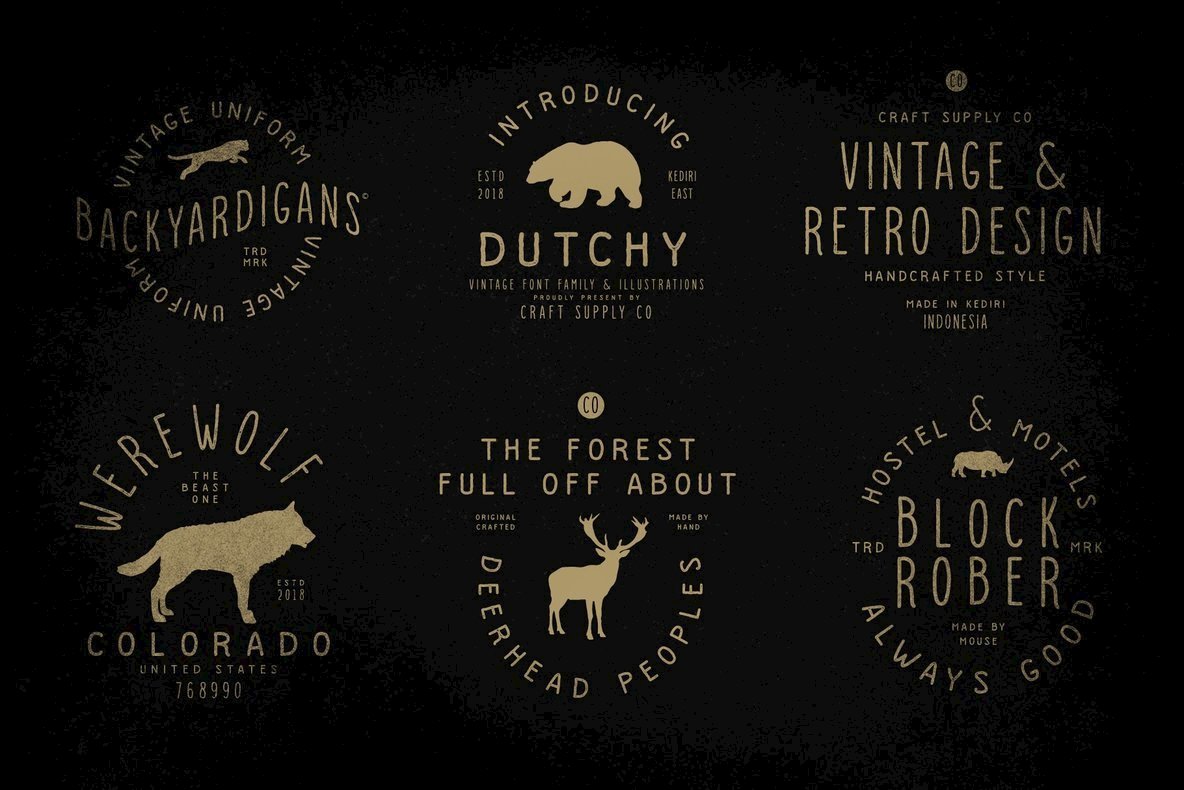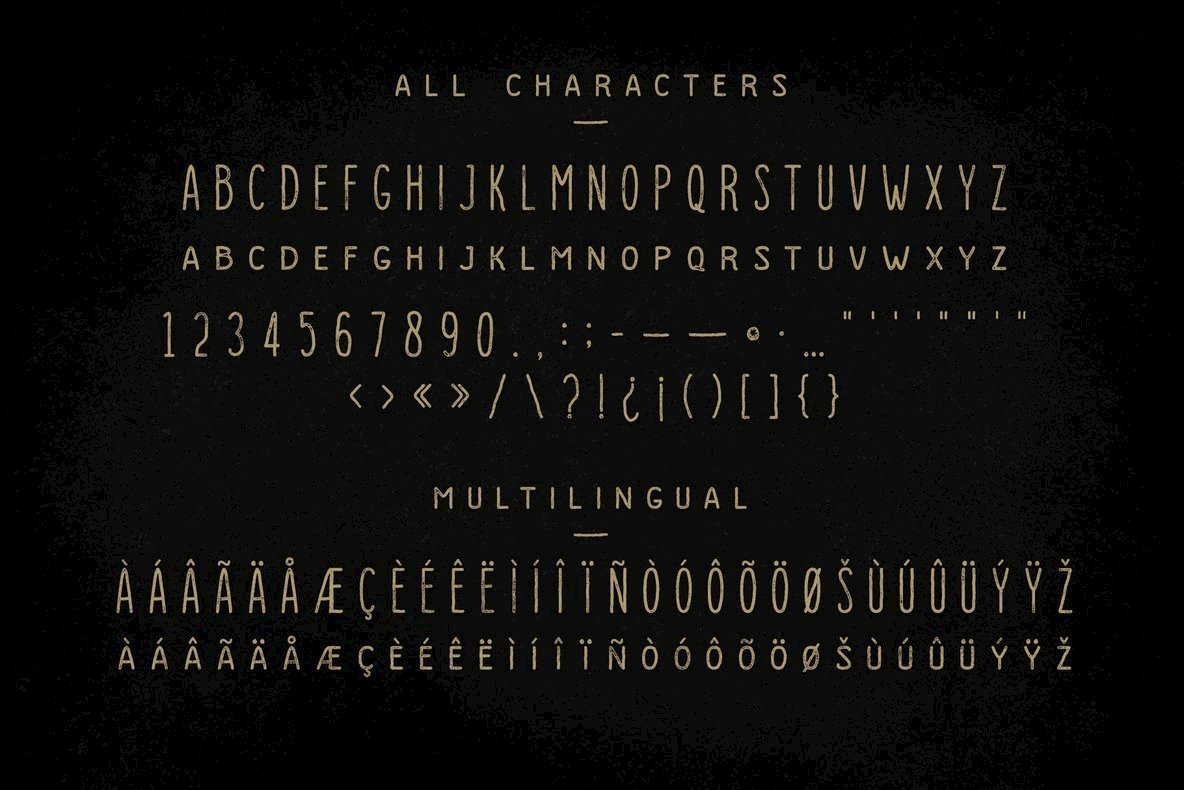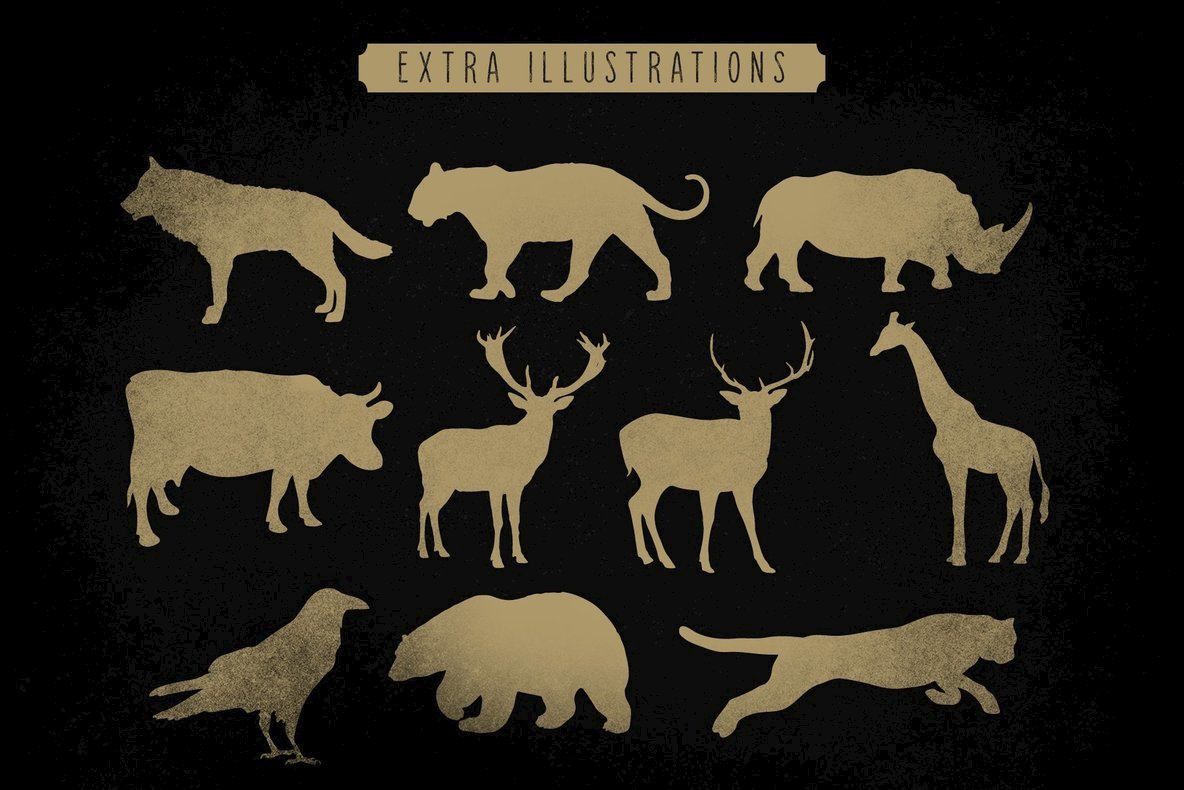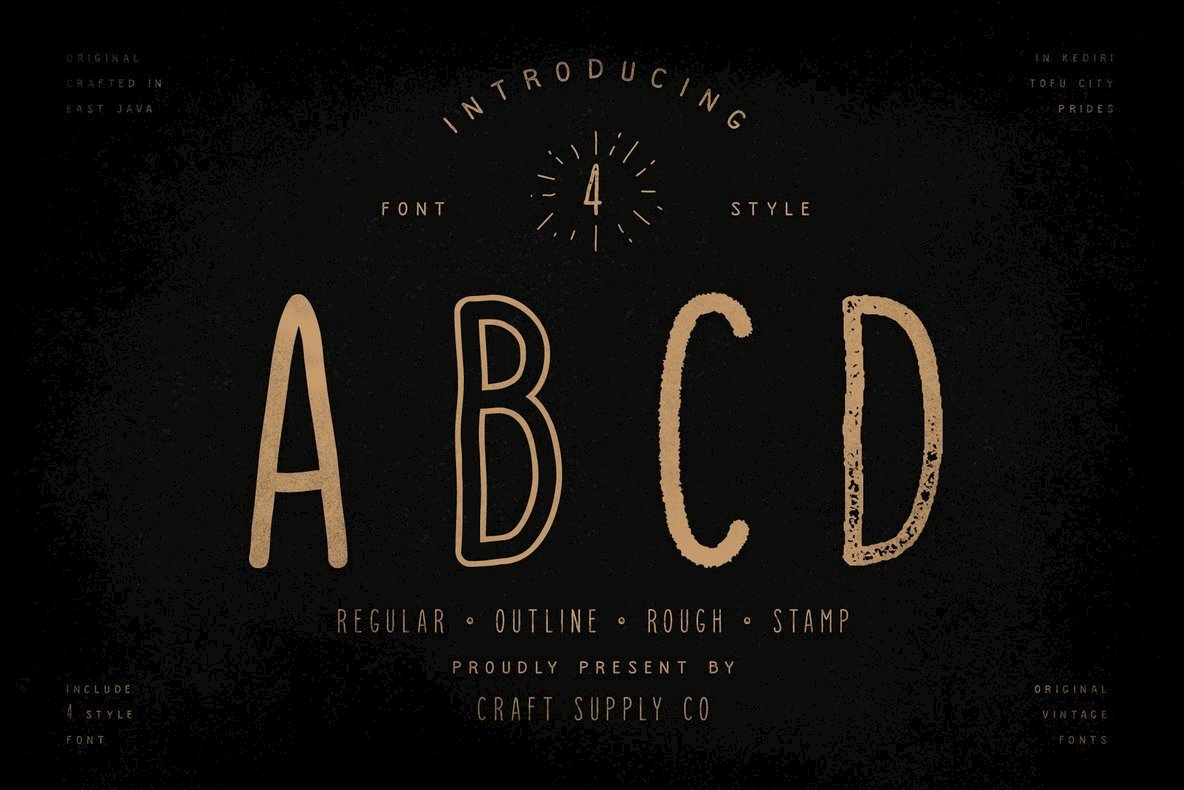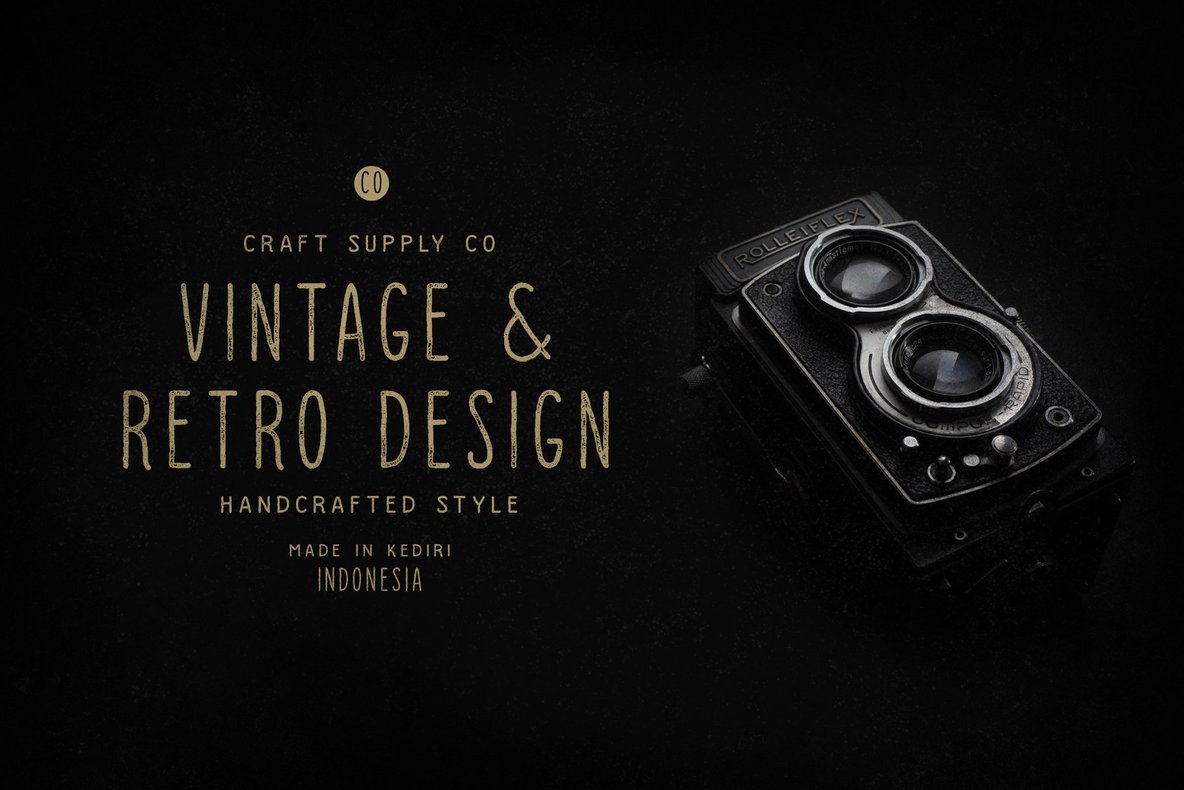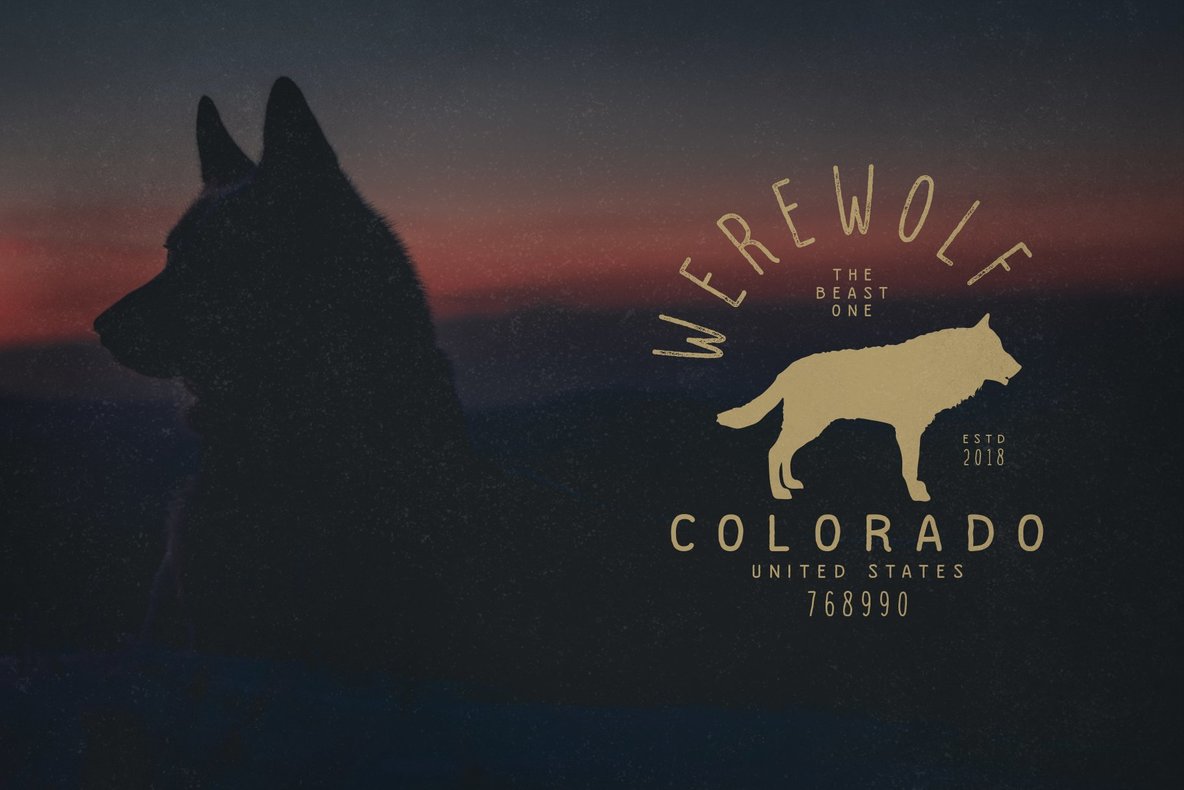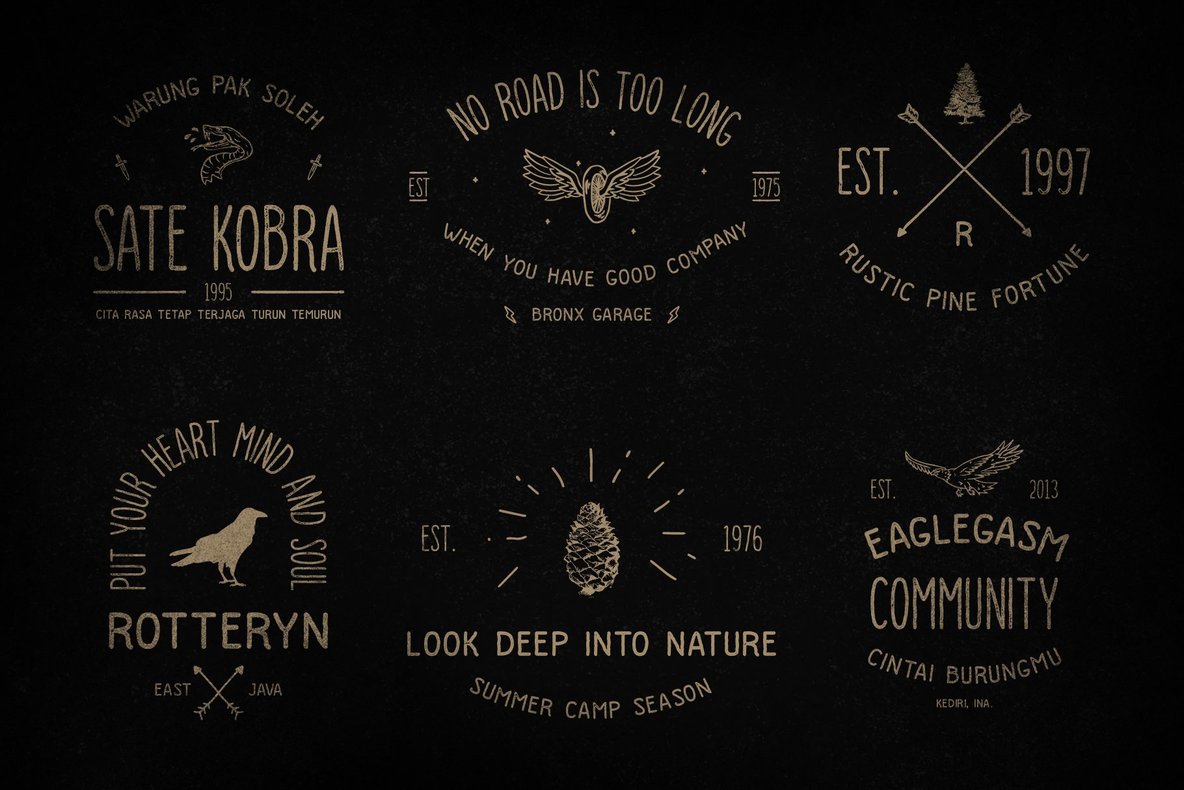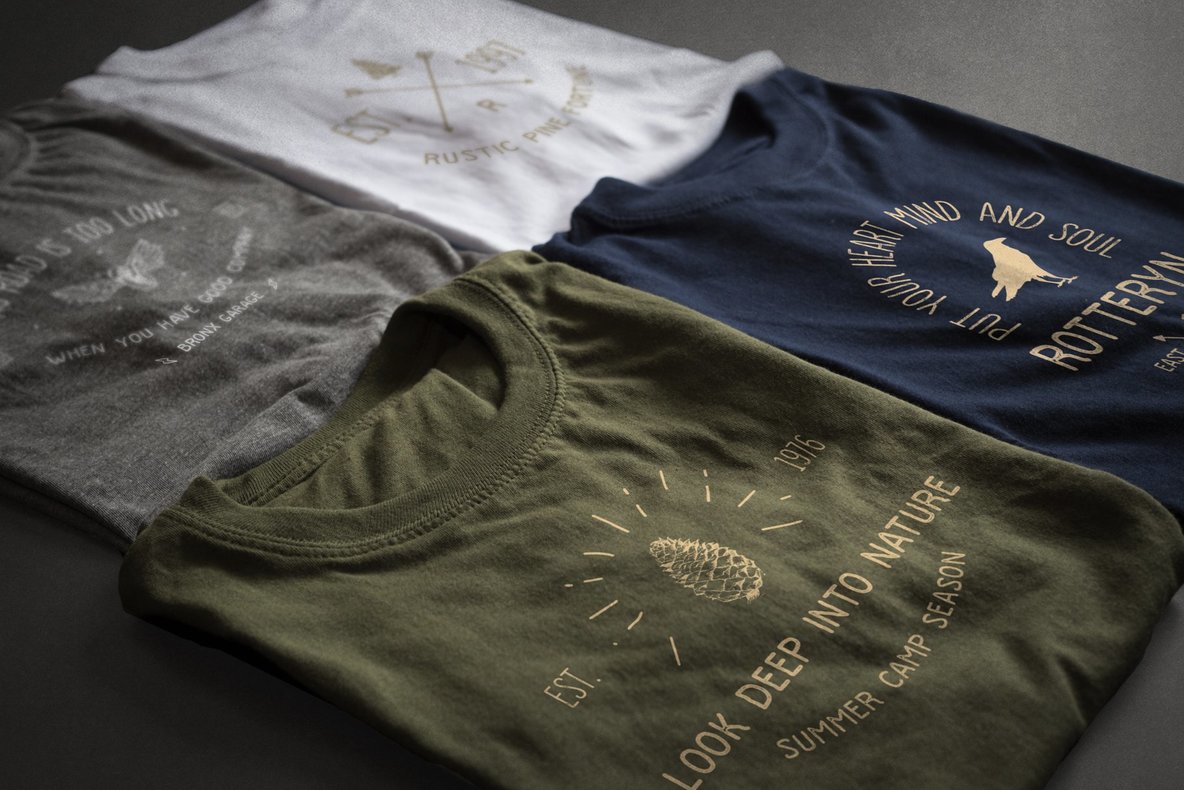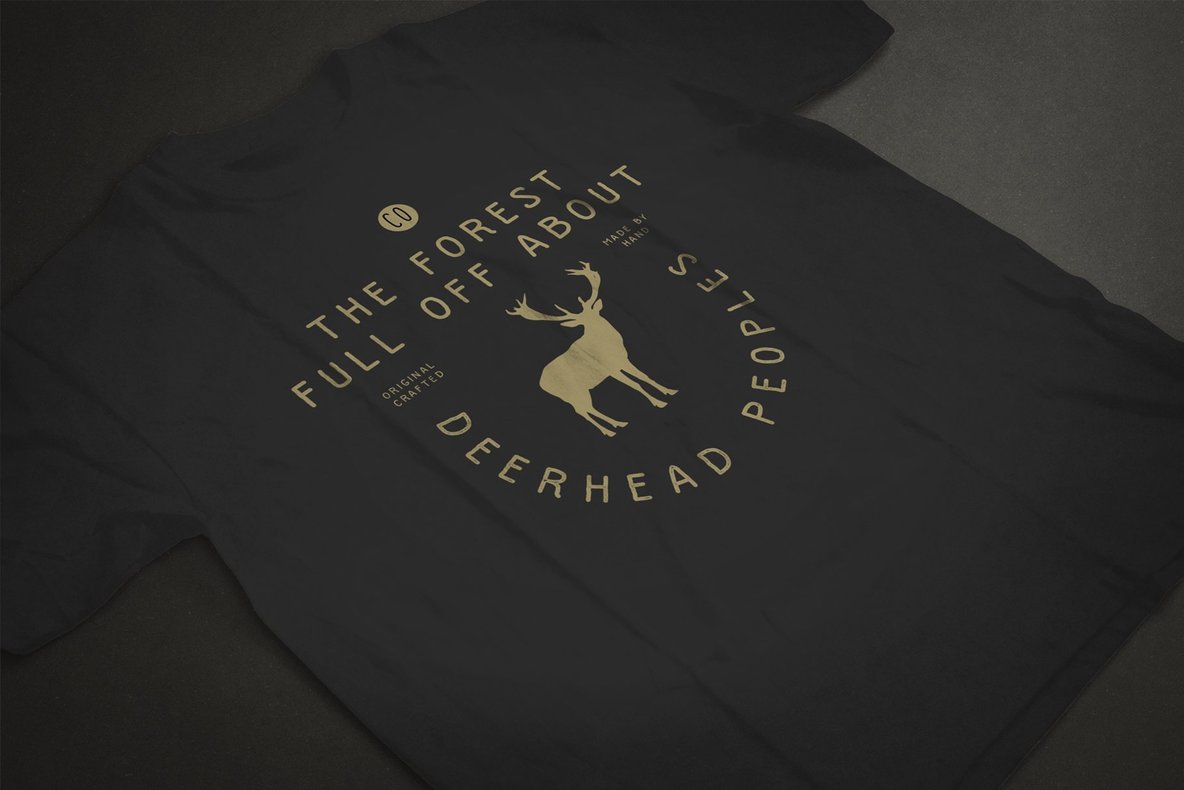
Dutchy Font
Introducing Dutchy - Vintage Type Family + Illustrations includes 4 Style Fonts. It can be used to create almost all types of design projects like print materials. Just use your imagination and some graphic design set in Extras, your project will become more alive and look great than ever with one of the Dutchy - Vintage Type Family.
Dutchy Regular
Dutchy Rough
Dutchy Stamp
Dutchy Outline
All Caps Type
Standard Ligatures
Numerals & Punctuations (OpenType Standard)
Accents (Multilingual characters) (AÀÁÂÃÄÅCÇDÐEÈÉÊËIÌÍÎÏNÑOØÒÓÔÕÖUÙÜÚÛWYÝŸỲŸÆŒßÞ)